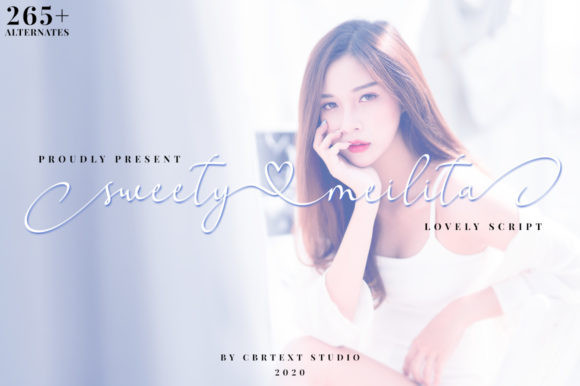
Sweety Meilita Font
Sweety Meilita is a beautiful and clean calligraphic script font. Fall in love with its authentic feel and use it to create gorgeous wedding invitations, beautiful stationary art, eye-catching social media posts, and cute greeting cards. This font is PUA encoded which means you can access all of the amazing glyphs and swashes with ease! It also features a wealth of special features including alternate glyphs and ligatures.